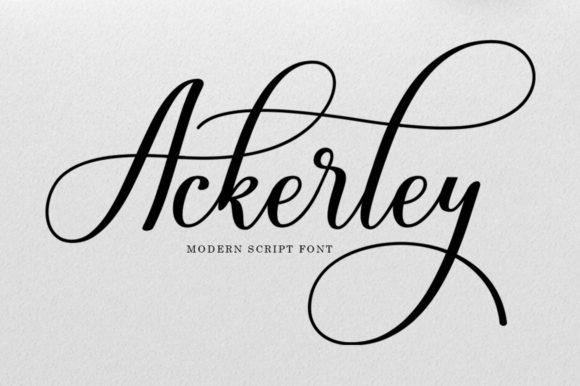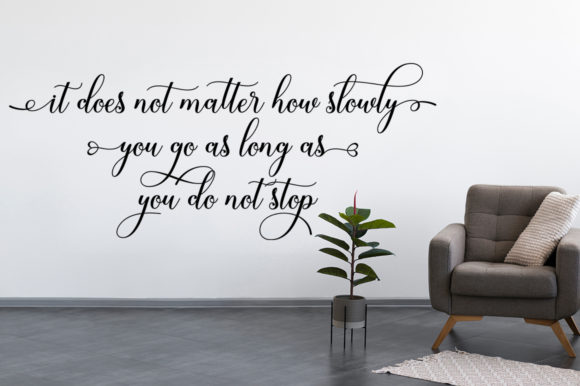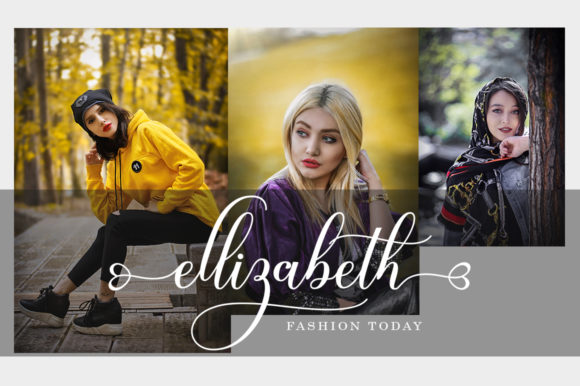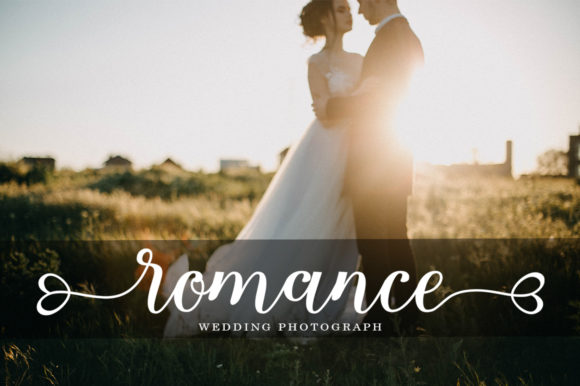
Ackerley Font: Elegant Calligraphy Script for Wedding & Logo Design
About the Ackerley Font
Elevate your designs with Ackerley Font, a font that combines sophistication with readability. Ackerley is an elegant and flowing handwritten font. It is PUA encoded which means you can access all of the glyphs and swashes with ease! It maintains its classy calligraphic influences while feeling contemporary and fresh. Fall in love with this font and bring your projects to the highest levels!
Ackerley’s elegant, flowing forms make it ideal for projects requiring a touch of sophistication: wedding invitations, logos for luxury brands, or short, impactful headlines. It also works well on packaging for high-end products where a sense of handcrafted quality is desired. However, its delicate nature makes it unsuitable for body text or UI elements where readability is paramount. Extended use will significantly impair legibility.
Pairing Ackerley effectively requires considering its inherent grace. A clean, geometric sans-serif like Montserrat would create a striking contrast, while a classic serif like Garamond would offer a more harmonious, traditional feel. For a more playful approach, consider pairing it with a slightly quirky script font, but ensure the script is legible and doesn’t overpower Ackerley’s delicate strokes.
Ackerley’s personality is best described as refined and graceful, conveying a sense of understated luxury and timeless elegance. It’s not a font for bold statements, but rather for subtle sophistication and carefully considered design.